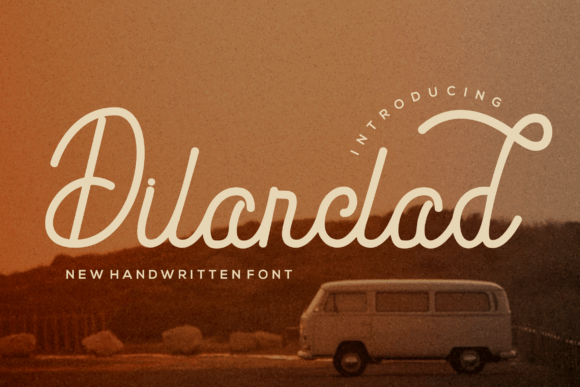
Step into the world of Dilanclad, a captivating script font that's poised to redefine your design horizons. Its delicate strokes dance across the page with a charm that's both timeless and contemporary, effortlessly capturing the essence of elegance. Whether you're crafting wedding invitations, designing thank you cards, or breathing life into quotes and greeting cards, Dilanclad adds a touch of grace and sophistication that will leave a lasting impression.
With Dilanclad, your logos and business cards will radiate a sense of professionalism and creativity that speaks volumes about your brand's identity. It's the perfect choice for projects that demand a personal touch, adding a layer of warmth and individuality that resonates with your audience. Whether you're a seasoned designer or just starting out, Dilanclad is your gateway to creating designs that captivate and inspire.
Unleash the power of Dilanclad and witness the transformation of your creative endeavors. Its versatility knows no bounds, allowing you to effortlessly elevate the aesthetic of any project. From invitations and cards to logos and branding, Dilanclad seamlessly adapts to your vision, becoming an integral part of your design narrative. Experience the allure of Dilanclad today and embark on a creative journey that's both enchanting and unforgettable.